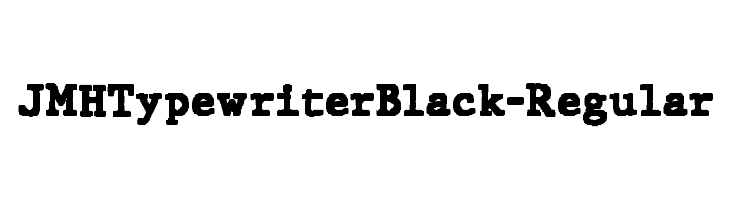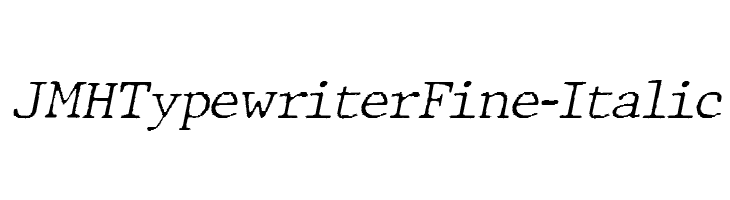
A classic typewriter-style monospaced font with a vintage aesthetic.
A fine, italic typewriter-style font with medium contrast and elegant slant.
A bold, italicized typewriter-style font with a classic, monospaced design.
A bold, typewriter-inspired font with a classic, monospaced design.
A bold, monospaced typewriter-style font with a vintage feel.
A classic, italic typewriter-style font with monospaced characters.
A classic typewriter-style font with monospaced characters and distinct serifs.
A bold, italic typewriter-style font with a vintage yet modern appeal.